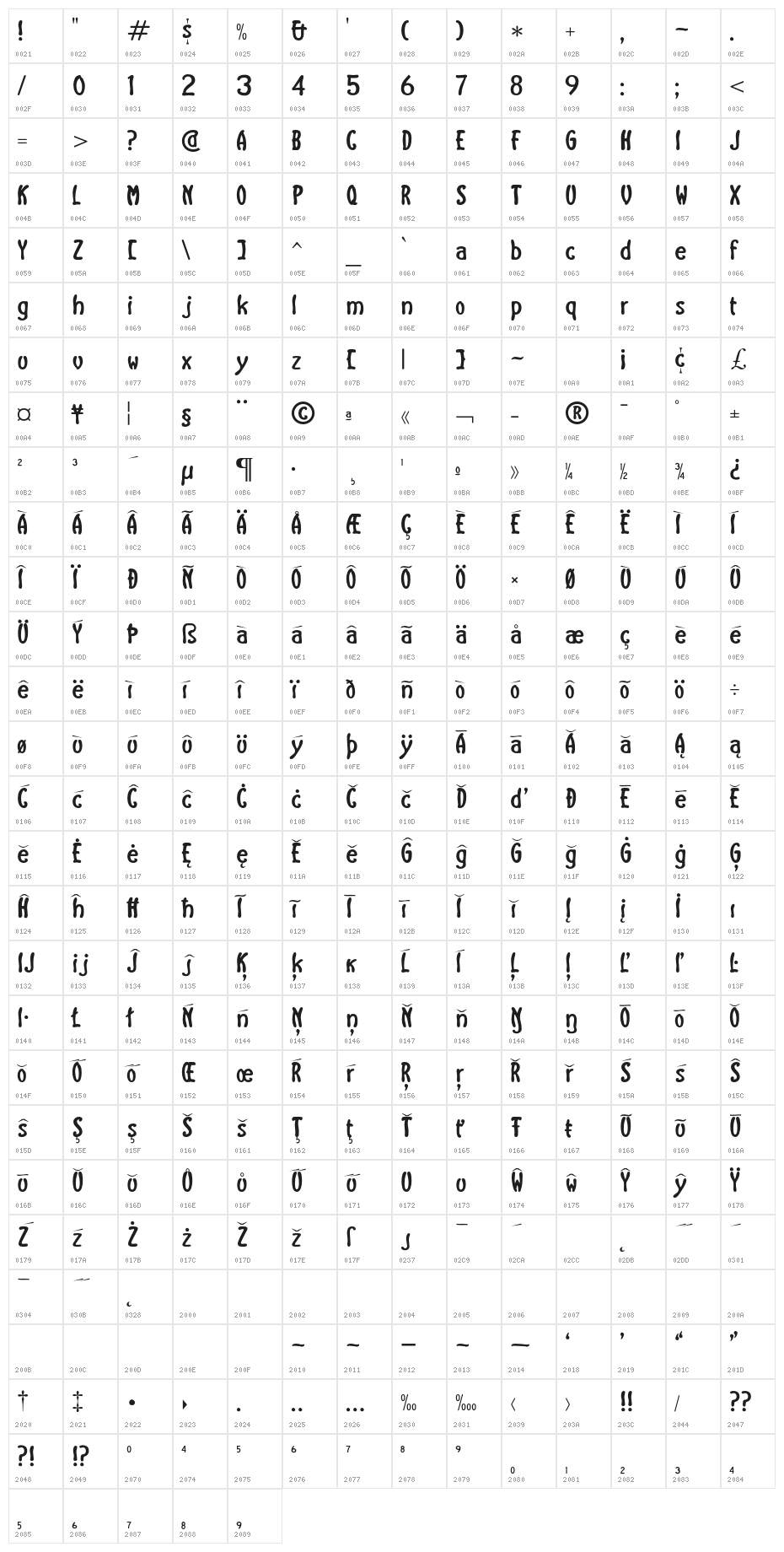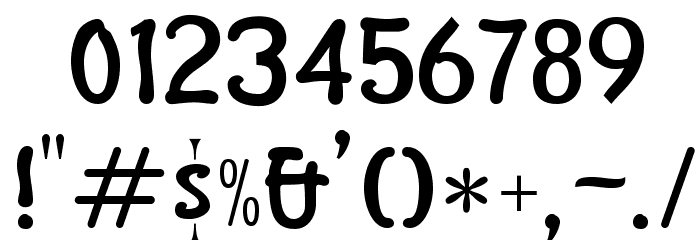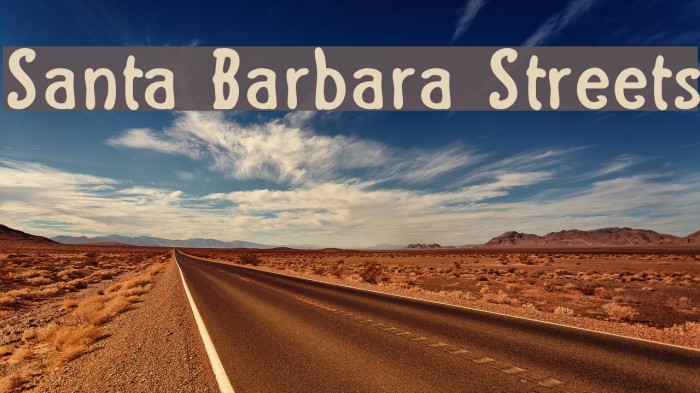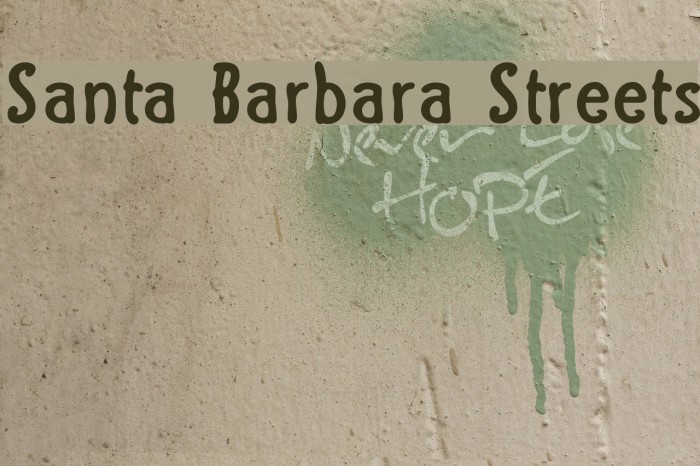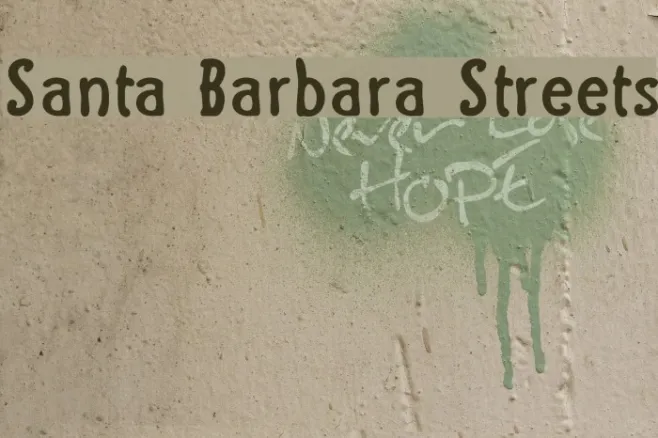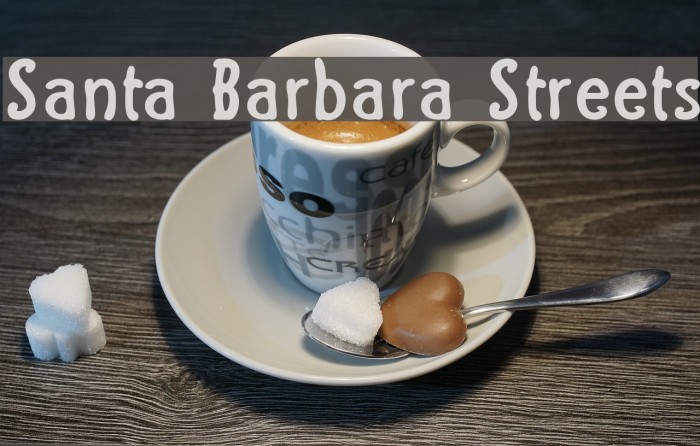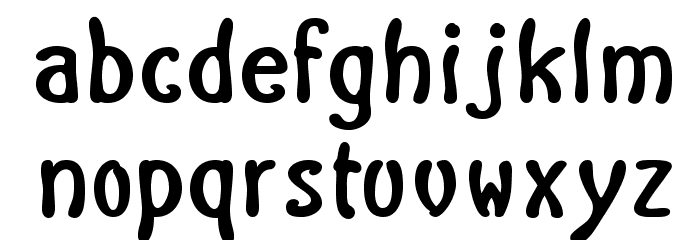
Santa Barbara Streets Font
Santa Barbara Streets Description
This font features a playful and whimsical style with rounded, slightly irregular letterforms that give it a hand-drawn appearance. The characters are bold and have a consistent stroke width, contributing to a friendly and approachable look. The uppercase and lowercase letters maintain a uniform height, while the numerals and special characters are designed to match the overall aesthetic. The font's unique charm makes it suitable for projects that require a touch of creativity and informality.
| Proposed Projects | Ideal for children's books, casual invitations, playful branding, and creative posters. |